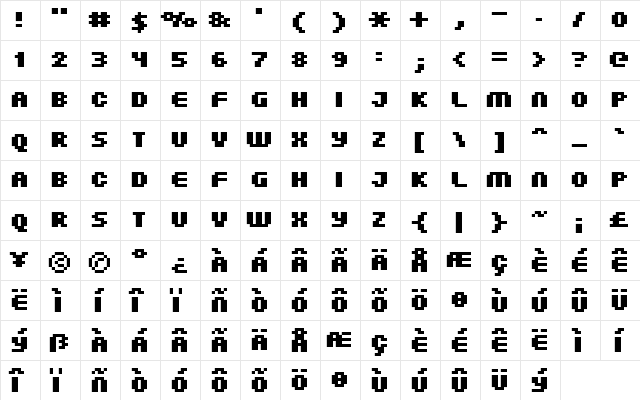
FFF Atlantis Bold Regular
Design Context for FFF Atlantis Bold Typeface
FFF Atlantis Bold is a composed and adaptable typeface that performs quietly and consistently across a wide range of design contexts. The heavy weight commands attention and anchors typographic hierarchies.